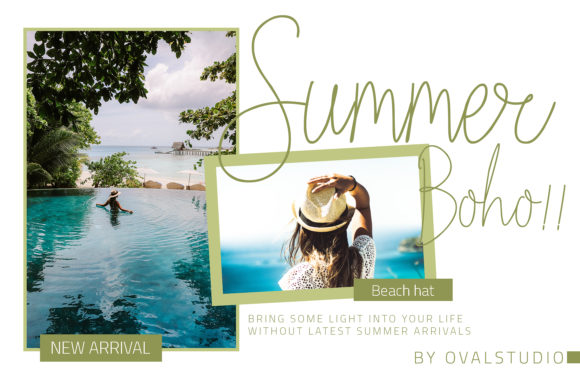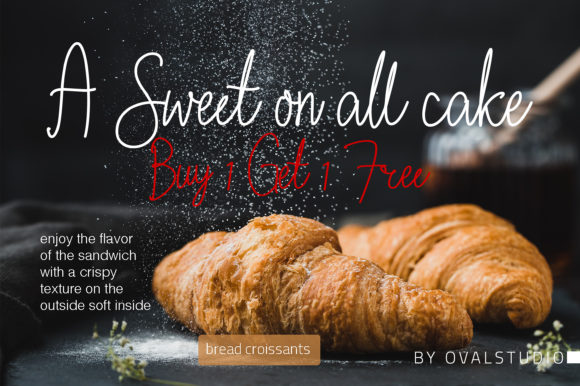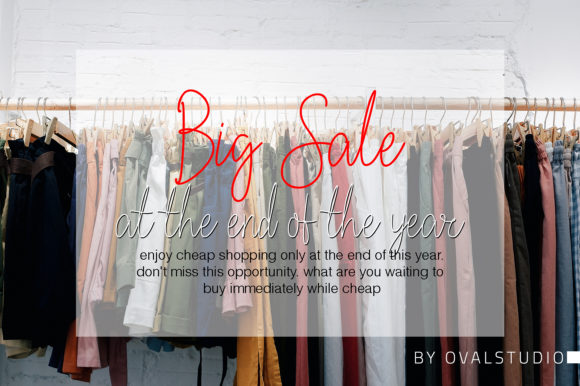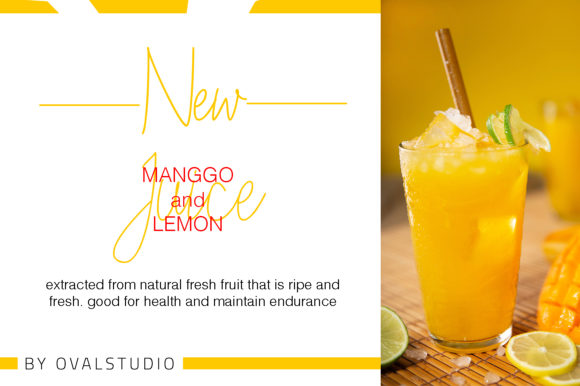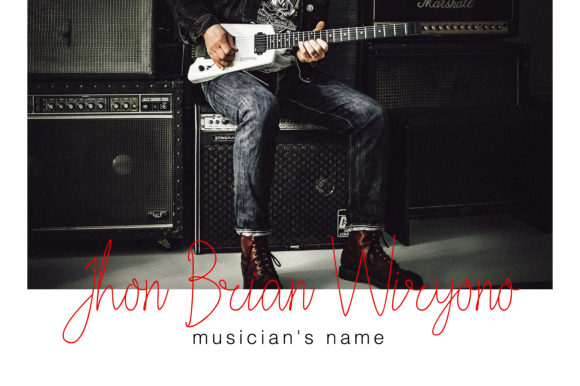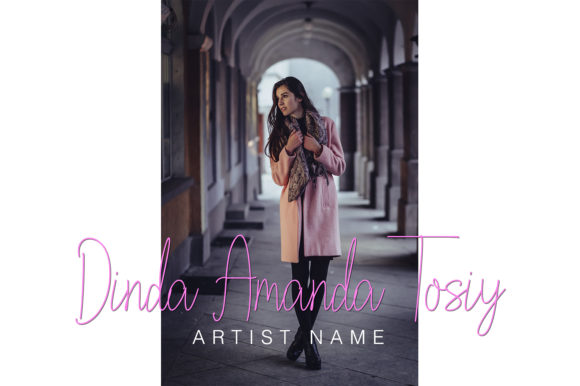
HomeScript FontsSoonetta Script Font Script Fonts Soonetta Script Font FacebookXPinterestWhatsApp Soonetta Script Font Poster 2 Soonetta Script Font Poster 3 Soonetta Script Font Poster 4 Soonetta Script Font Poster 5 Soonetta Script Font Poster 6 Soonetta Script Font Poster 7 About Soonetta Script Font Soonetta is a cool font with a beautiful vibe. DOWNLOAD NOW People also explored Arslina Font Heart Memory Font Ocean Wave Font Gorila Colonia Portuguesa Blista Rade Font Enjoy the Talk Font Summer Flower Font Marquita Precious Font 303 0 TagsSoonetta Script Font Previous articleBabyhome FontNext articleBelligerent Font LEAVE A REPLY Cancel reply Comment: Please enter your comment! Name:* Please enter your name here Email:* You have entered an incorrect email address! Please enter your email address here Website: Save my name, email, and website in this browser for the next time I comment. Personal Use Free Callisa Script Personal Use Free Read more about this font Gagalin Personal Use Free Read more about this font Adelaide Personal Use Free Read more about this font Stereofidelic Personal Use Free Read more about this font BLOG Where to Buy American Fonts Online in 2024 Where to Buy American Fonts Online: The Ultimate Guide for 2024 Looking for the perfect American font to elevate your design projects? You're in the... Exploring Font Trends Free Fonts Risk: Why Free Fonts Can Be Dangerous for Designers Best Fonts for YouTube Videos: Make Your Thumbnails Stand Out